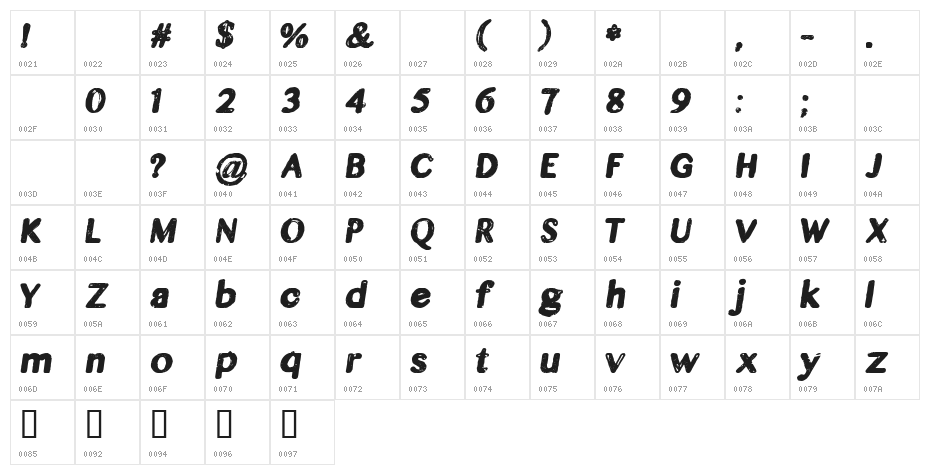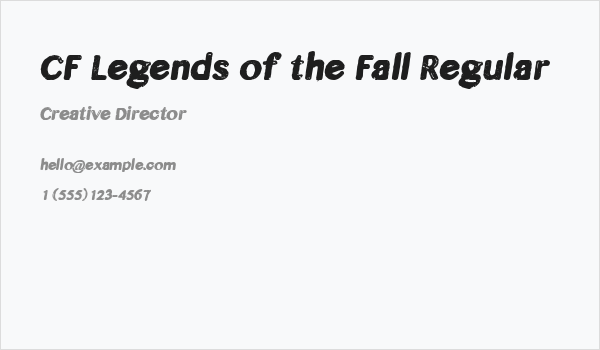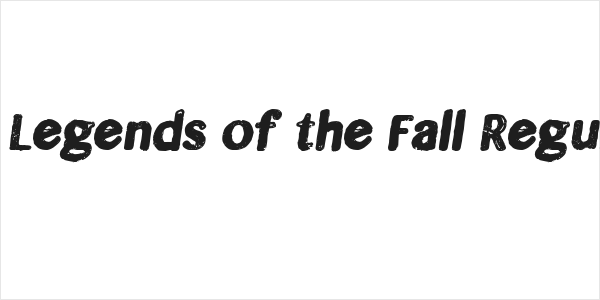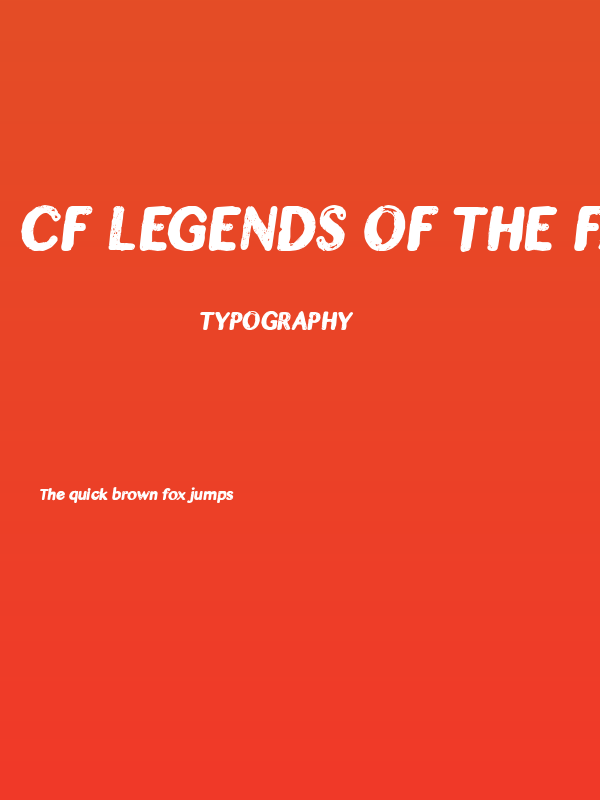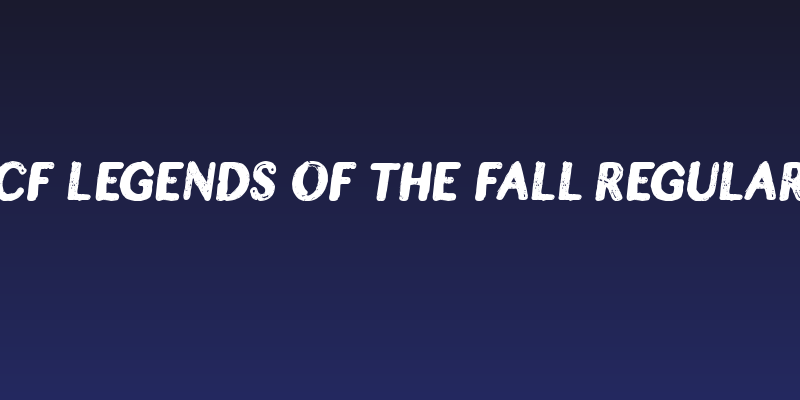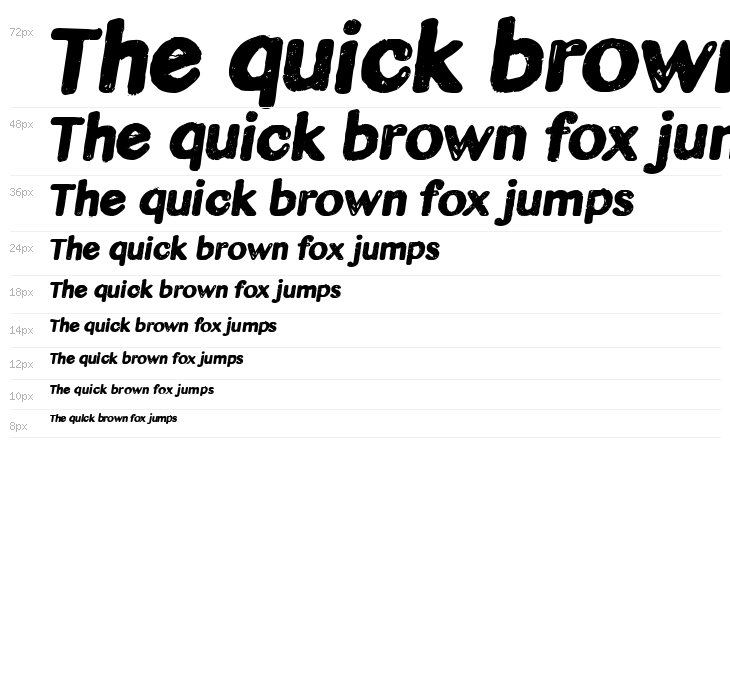
CF Legends of the Fall Regular Font
CF Legends of the Fall Regular Description
This font features a bold and distressed style, giving it a rugged and vintage appearance. The characters are thick and have a textured, worn look that adds depth and character. The uppercase and lowercase letters maintain a consistent style, with rounded edges and a slightly irregular form that enhances the hand-crafted feel. Numbers and special characters follow the same design, ensuring uniformity across all elements. This font is ideal for projects that require a rustic or retro aesthetic, such as posters, branding, or packaging designs.
| Proposed Projects | Perfect for vintage posters, rustic branding, and packaging designs. |